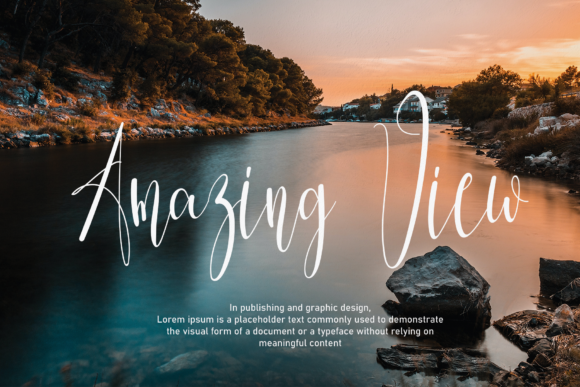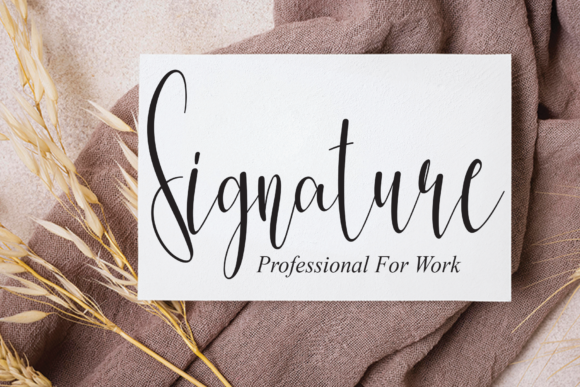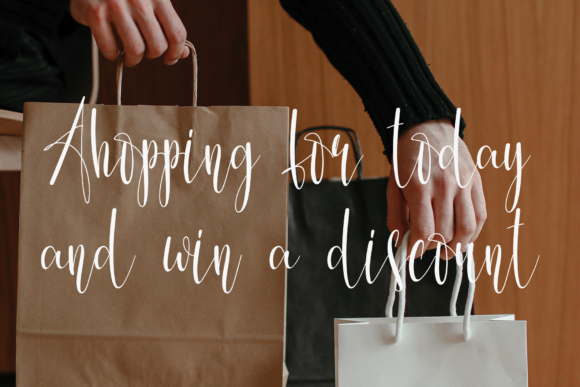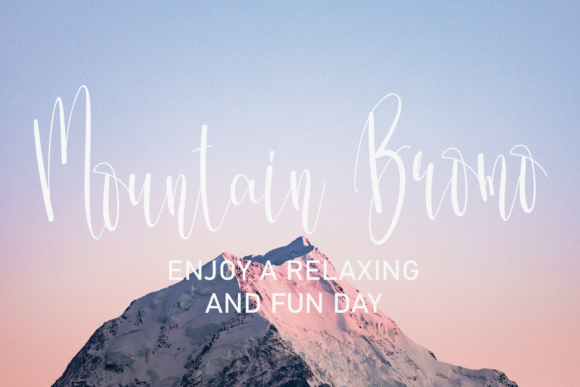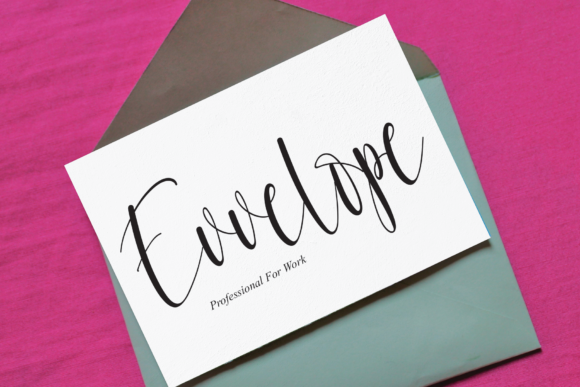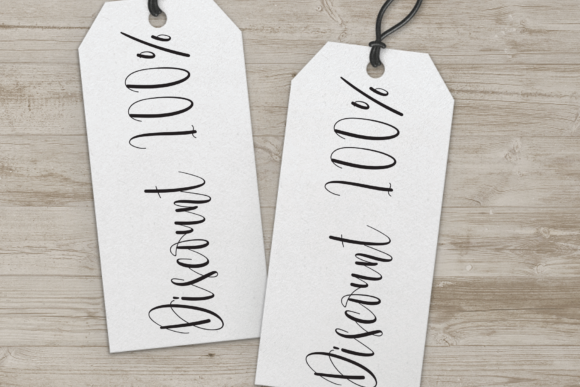
Discover the Charming Amsterdam Font: Elevate Your Designs with its Playful Flair
Are you on the hunt for a font that can add a touch of whimsy and sophistication to your designs? Look no further than the Amsterdam Font, a lovely script font that is sure to capture the hearts of designers and crafters alike. This delightful font features charming, playful characters that seem to dance along the baseline, making it the perfect addition to your most creative ideas.
What Makes Amsterdam Font So Special?
Amsterdam Font is a script font that boasts a unique and distinctive style, characterized by its flowing, connected letters and charming embellishments. Each character is carefully crafted to convey a sense of playfulness and elegance, making it an excellent choice for a wide range of design projects. Whether you’re working on a logo, invitation, or social media graphic, Amsterdam Font is sure to add a touch of personality and flair.
Key Features of Amsterdam Font
- Charming, playful characters: Each letter in Amsterdam Font is designed to be visually appealing, with a unique and charming personality.
- Flowing script style: The font features a flowing, connected script style that gives it a sense of movement and energy.
- Embellishments and swashes: Amsterdam Font comes with a range of embellishments and swashes, allowing you to add extra flair to your designs.
- Easy to read: Despite its playful nature, Amsterdam Font is surprisingly easy to read, making it suitable for use in a variety of contexts.
How to Use Amsterdam Font in Your Designs
Amsterdam Font is an incredibly versatile font that can be used in a wide range of design projects. Here are a few ideas to get you started:
- Logos and branding: Use Amsterdam Font to create a unique and memorable logo that reflects your brand’s personality.
- Invitations and stationery: Add a touch of elegance and whimsy to your invitations, greeting cards, and other stationery with Amsterdam Font.
- Social media graphics: Use Amsterdam Font to create eye-catching social media graphics that are sure to stand out.
- Packaging and labels: Add a personal touch to your product packaging and labels with Amsterdam Font.
Tips for Getting the Most Out of Amsterdam Font
To get the most out of Amsterdam Font, here are a few tips to keep in mind:
- Experiment with different sizes and colors: Amsterdam Font looks great in a variety of sizes and colors, so don’t be afraid to experiment and find the combination that works best for your design.
- Pair it with other fonts: Amsterdam Font pairs well with a range of other fonts, so try combining it with a bold sans-serif or a elegant serif font to create visual interest.
- Use it to add personality: Amsterdam Font is all about personality, so don’t be afraid to use it to add a touch of whimsy and charm to your designs.
In conclusion, Amsterdam Font is a charming and versatile script font that is sure to elevate your designs to the next level. With its playful characters, flowing script style, and range of embellishments, it’s the perfect choice for designers and crafters looking to add a touch of personality and flair to their work. So why not give Amsterdam Font a try and see the difference it can make?
Whether you’re a seasoned designer or just starting out, Amsterdam Font is a great addition to your font library. So go ahead, get creative, and see what amazing designs you can come up with using this lovely script font!